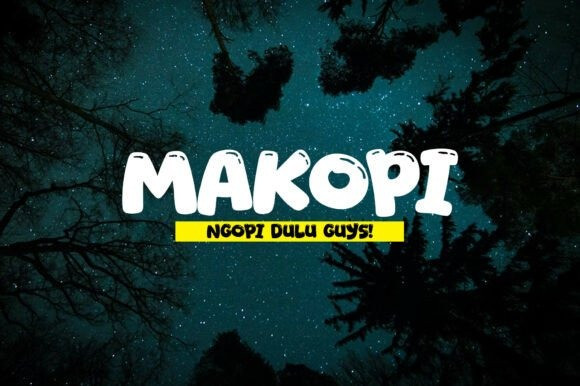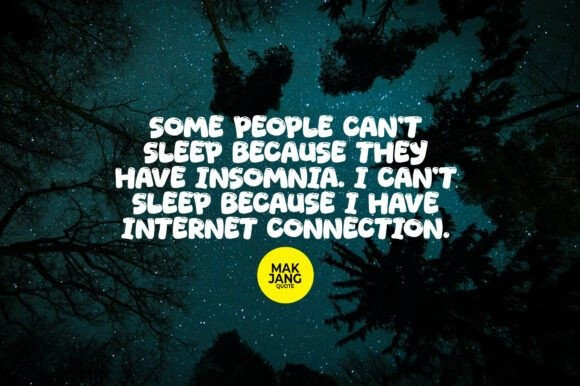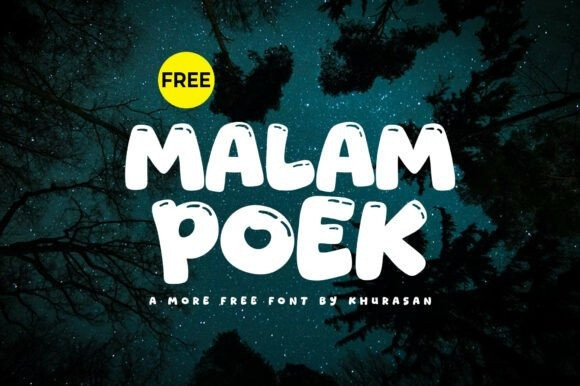
Malam Poek Font
Malam Poek Font is here to help! Inspired by casual doodles and bold marker sketches, this font adds a laid-back, handmade vibe to any design. Whether you’re making a birthday card or a cool t-shirt, Malam Poek makes it look effortless.